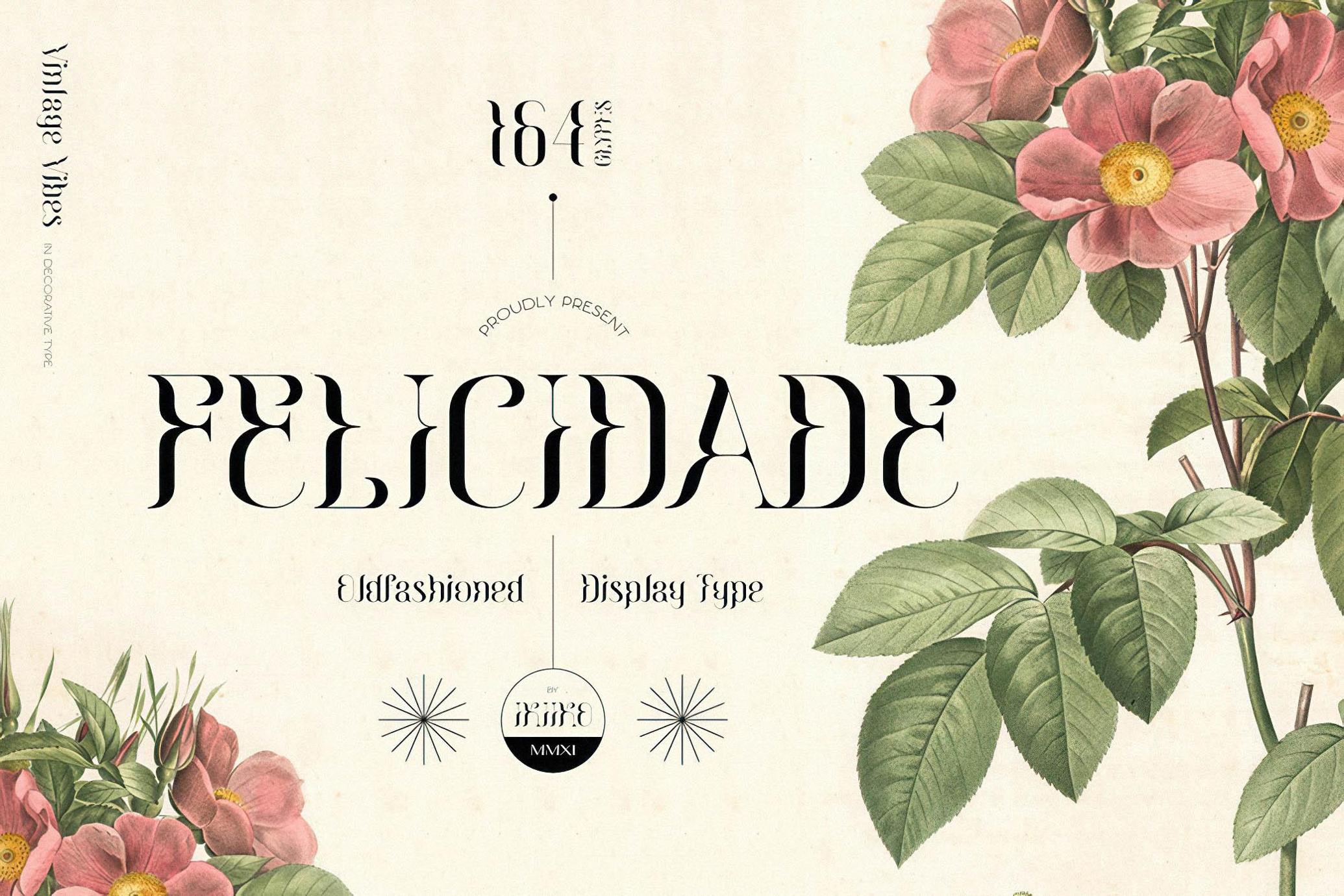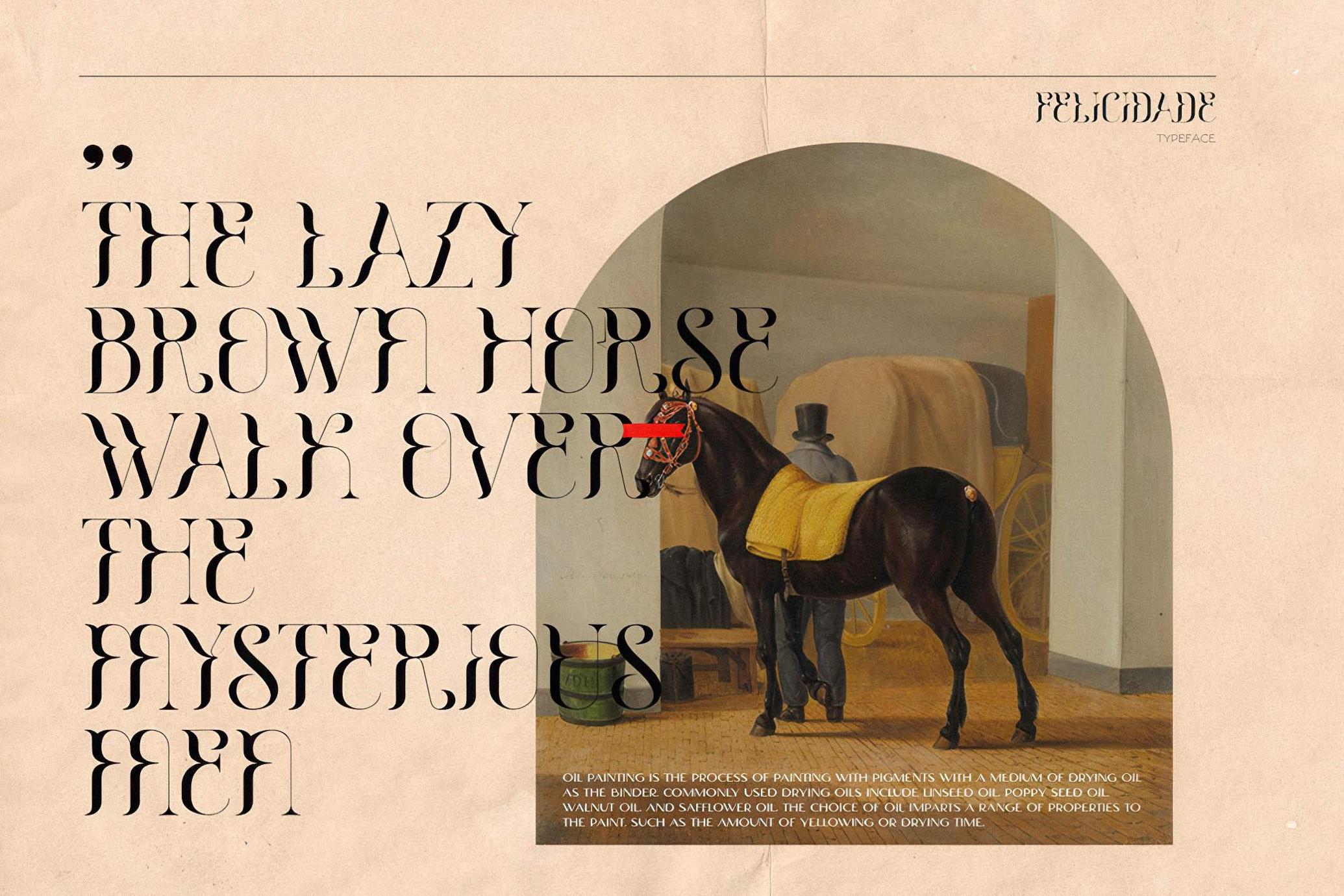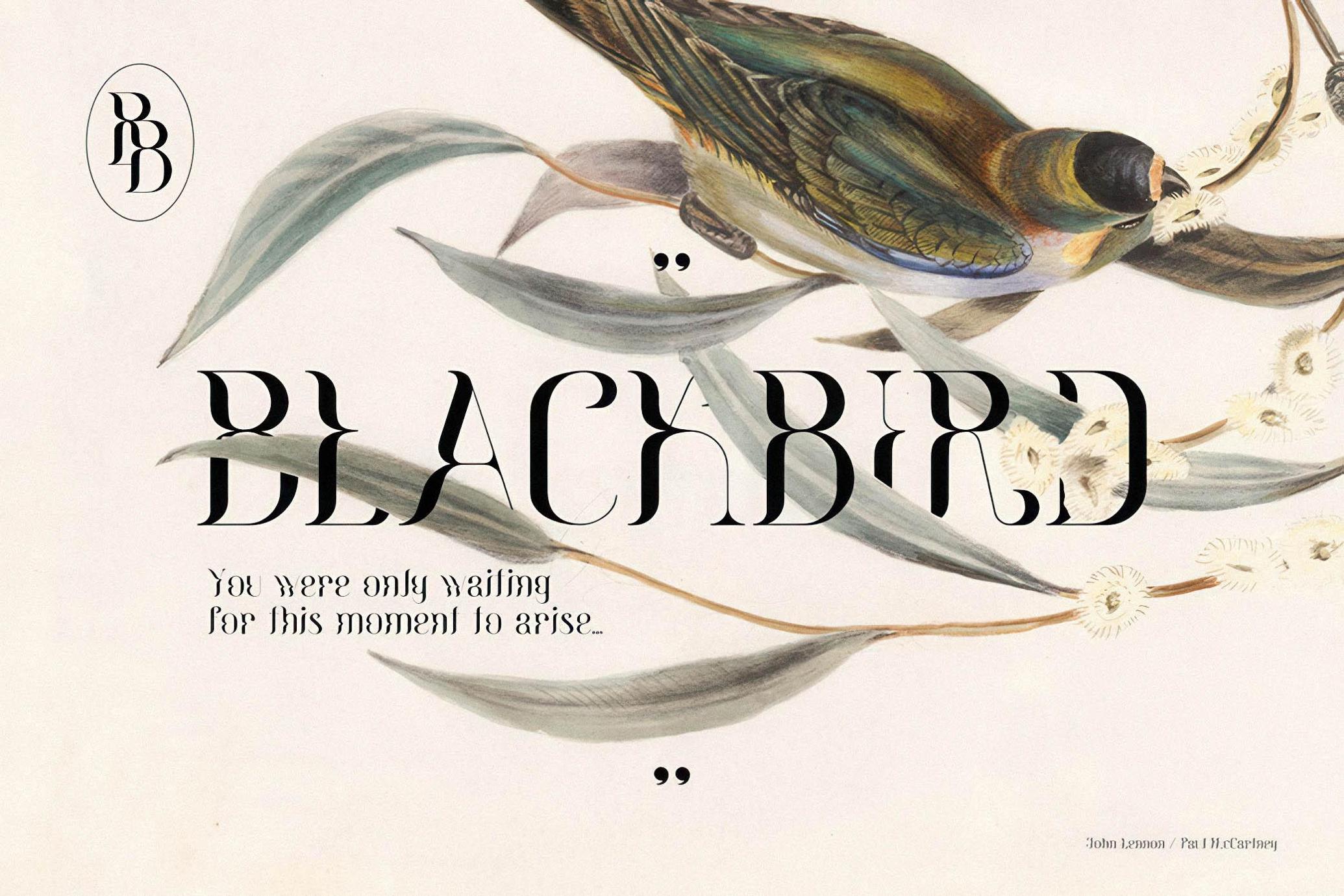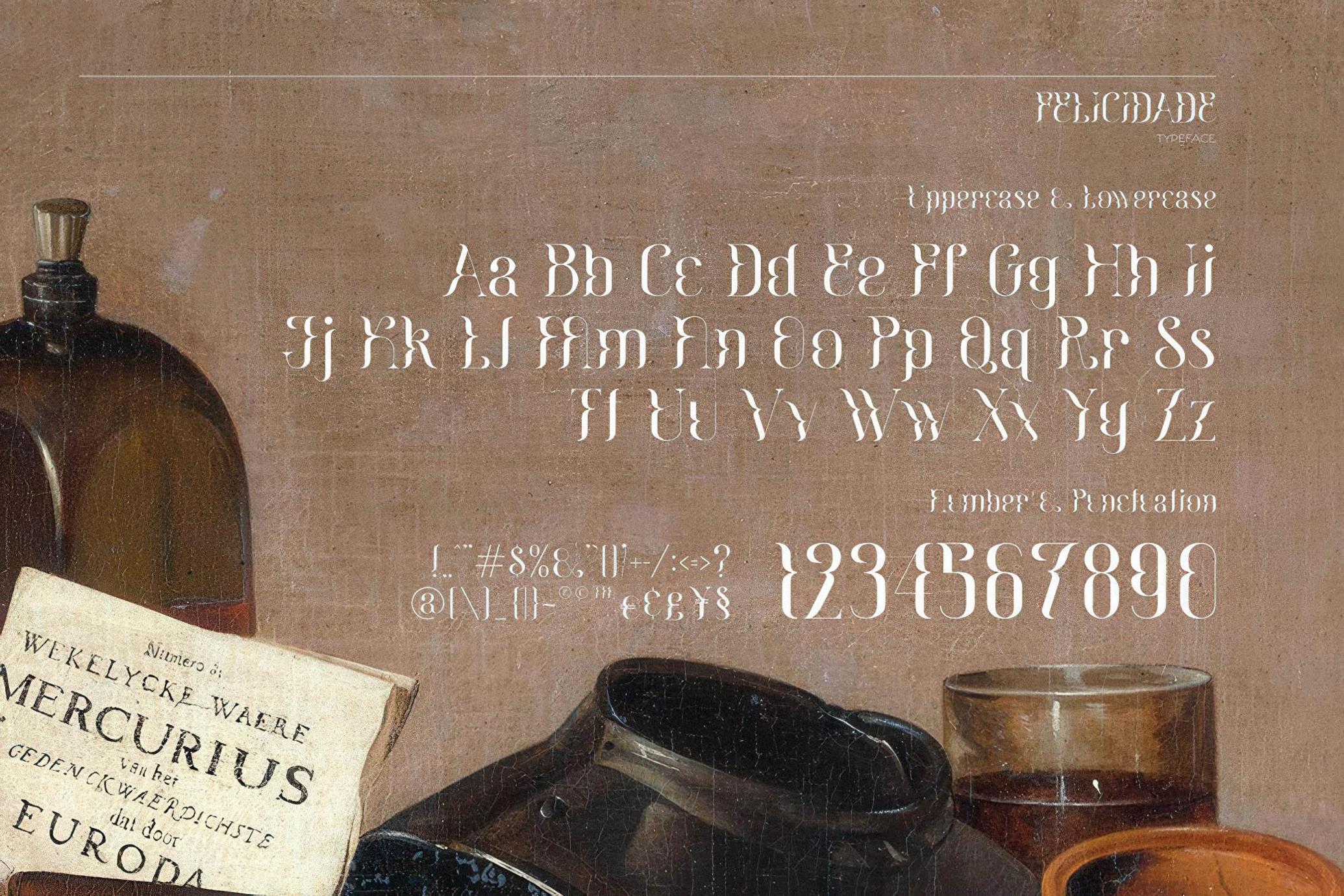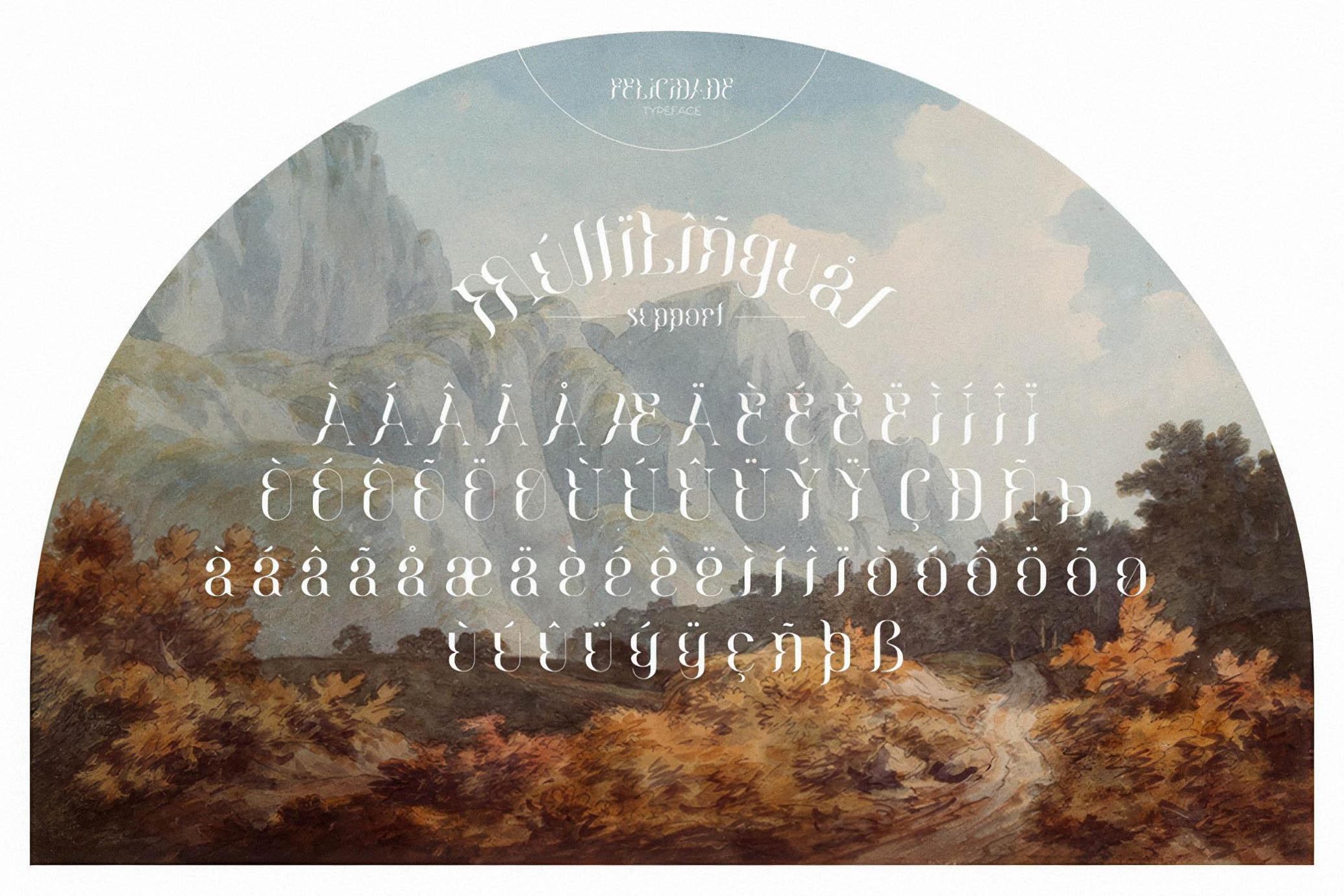
Felicidade - Victorian Font
A classy decorative type with vintage touch. This typeface is perfect for an luxury brand logo, books cover, ancient or vintage product, packaging design, magazine header, poster, quotes, and so much more.